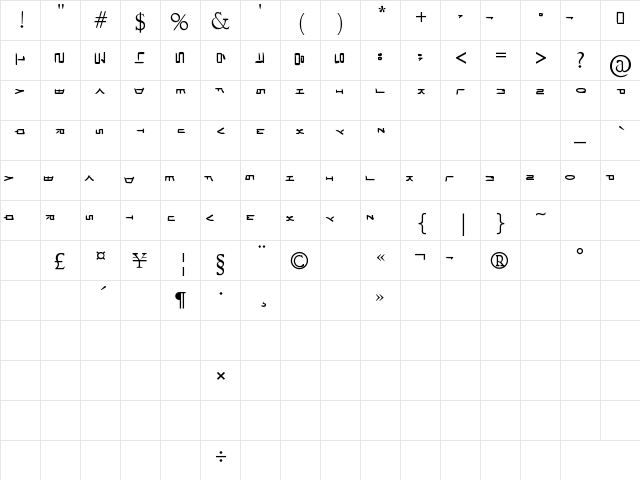
HaNgUl LoVe Regular
Design Context for HaNgUl LoVe Typeface
HaNgUl LoVe is a composed and adaptable typeface that performs quietly and consistently across a wide range of design contexts.